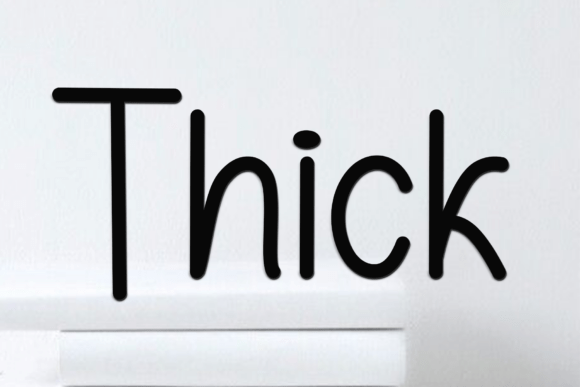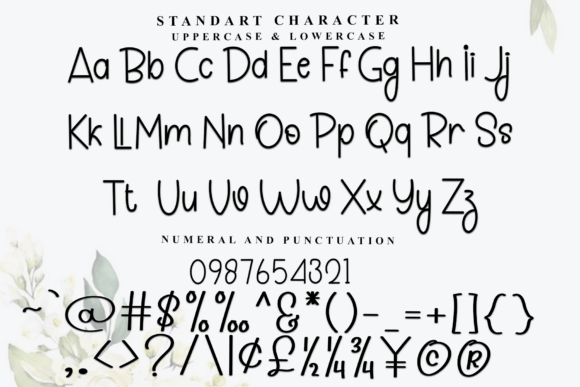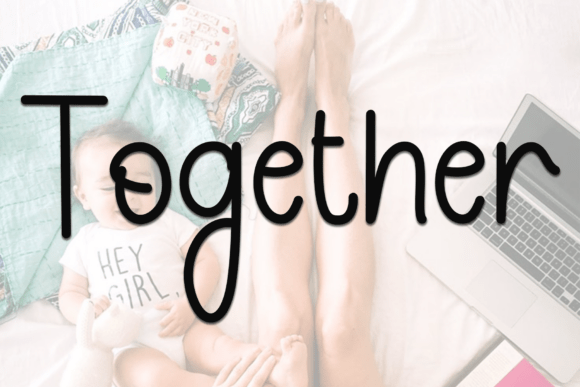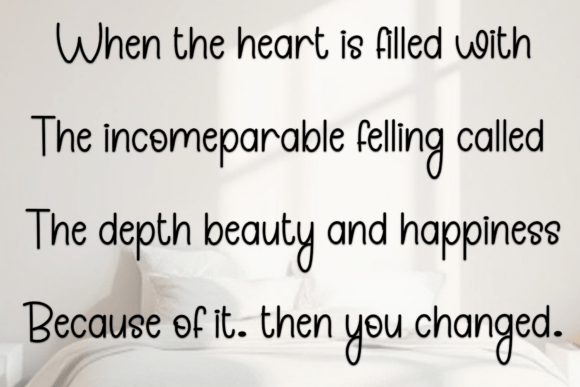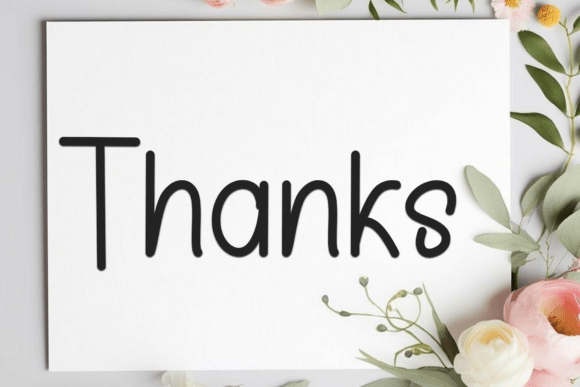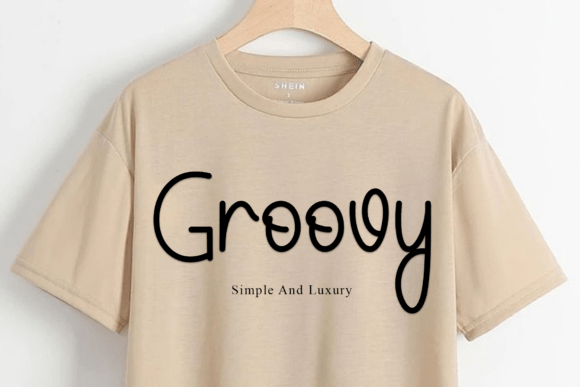
Introducing Drummer Font: The Ultimate Holiday Typeface
The holiday season is upon us, and what better way to get into the spirit than with a festive and merry typeface? Look no further than Drummer Font, a decorative and whimsical font that’s perfect for adding a touch of enchantment to your designs. Whether you’re a designer, crafter, or simply someone who loves the magic of the holiday season, Drummer Font is sure to bring a cheerful and nostalgic ambiance to your words.
Drummer Font is a unique and eye-catching typeface that’s specifically designed to capture the spirit of the holiday season. Its decorative elements and whimsical flair make it the perfect choice for greeting cards, gift tags, and holiday-themed projects. With Drummer Font, you can add a touch of festive fun to your designs and make them stand out from the crowd.
Drummer Font is a dream come true for designers and crafters who love to create holiday-themed projects. Whether you’re designing greeting cards, crafting gift tags, or creating festive decorations, Drummer Font is the perfect choice. Its decorative elements and whimsical flair make it easy to add a touch of magic to your designs, and its ease of use makes it accessible to crafters of all skill levels.
What You Can Create with Drummer Font
With Drummer Font, the possibilities are endless. Here are just a few ideas to get you started:
- Greeting cards: Create beautiful and festive greeting cards for the holiday season, complete with decorative elements and whimsical flair.
- Gift tags: Add a touch of magic to your gift tags with Drummer Font, making them the perfect finishing touch for your holiday gifts.
- Holiday decorations: Use Drummer Font to create festive decorations, such as garlands, banners, and other holiday-themed projects.
- Social media graphics: Add a touch of festive fun to your social media graphics, including Facebook posts, Instagram stories, and more.
Why Choose Drummer Font?
So why choose Drummer Font over other holiday-themed fonts? Here are just a few reasons:
- Unique and eye-catching design: Drummer Font is a truly unique and eye-catching typeface that’s sure to stand out from the crowd.
- Festive and merry: Drummer Font is specifically designed to capture the spirit of the holiday season, making it the perfect choice for holiday-themed projects.
- Versatile: Drummer Font can be used for a wide range of projects, from greeting cards and gift tags to holiday decorations and social media graphics.
In conclusion, Drummer Font is the ultimate holiday typeface for designers and crafters who want to add a touch of magic to their designs. With its decorative elements, whimsical flair, and ease of use, it’s the perfect choice for holiday-themed projects. Whether you’re creating greeting cards, gift tags, or holiday decorations, Drummer Font is sure to bring a cheerful and nostalgic ambiance to your words. So why wait? Download Drummer Font today and let your typography shine with the magic of the holiday season!